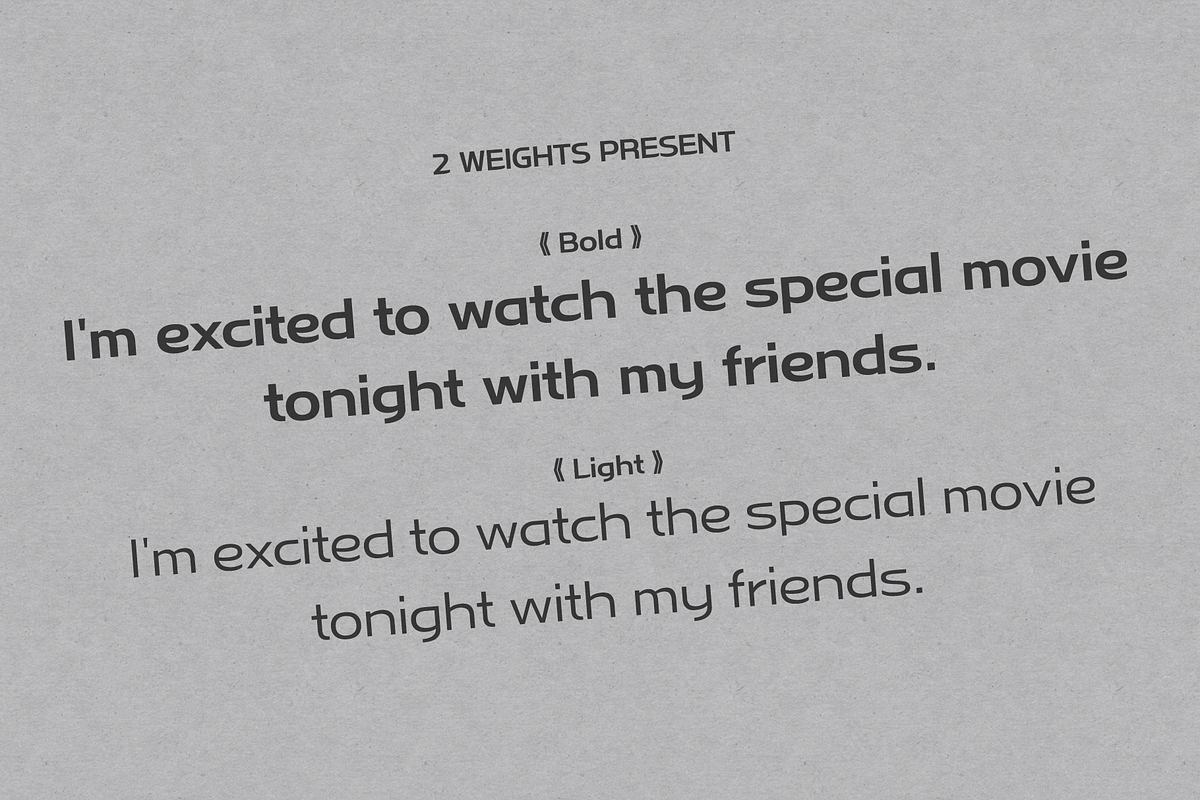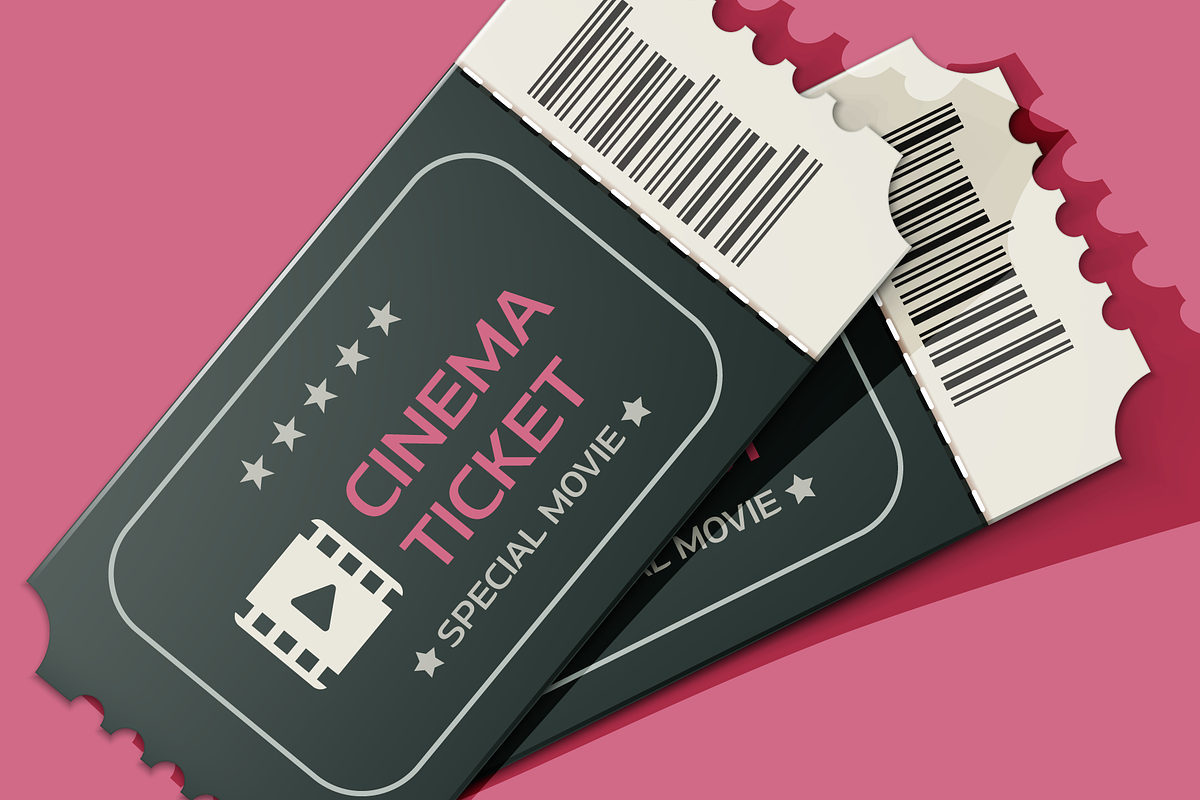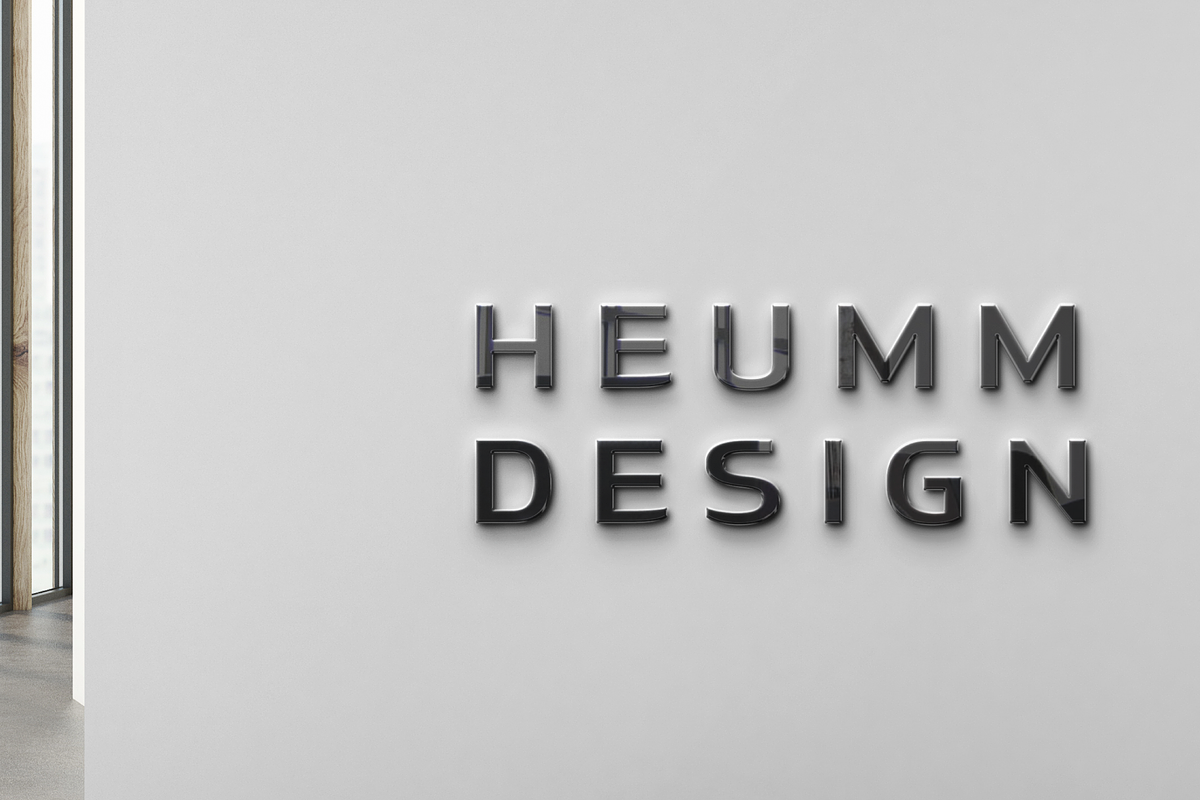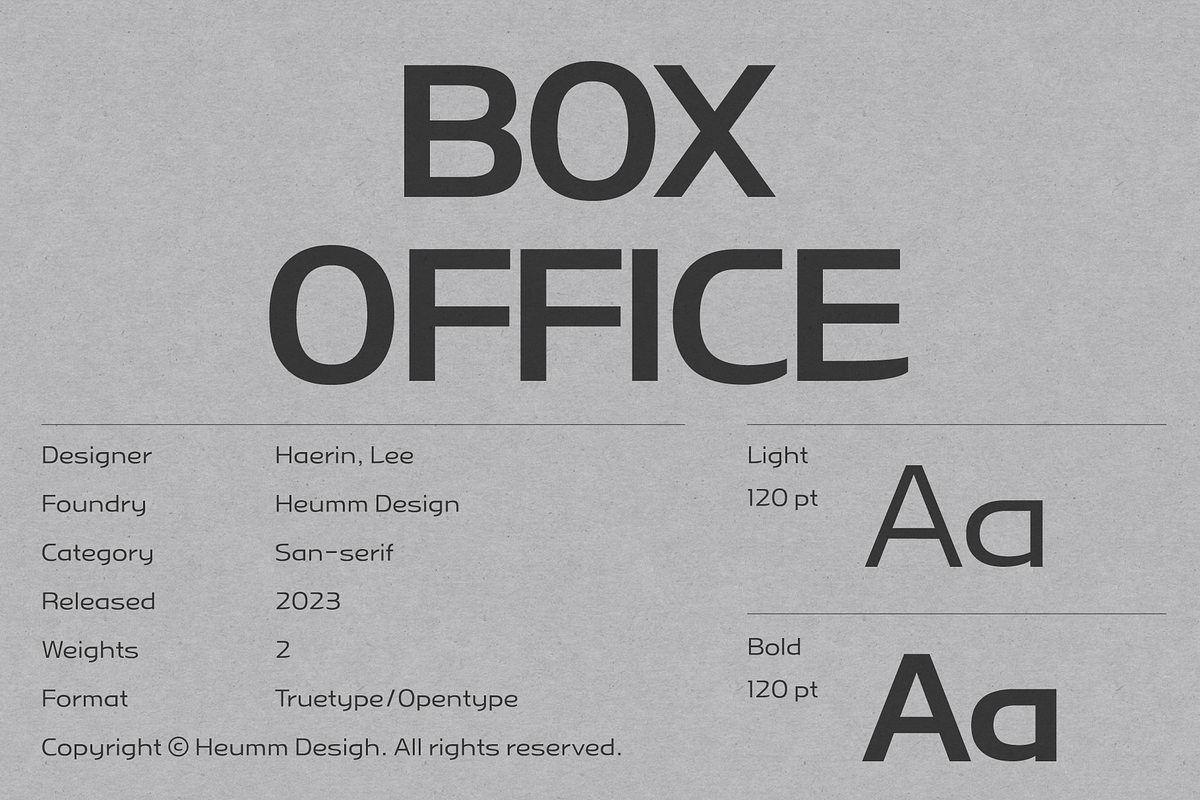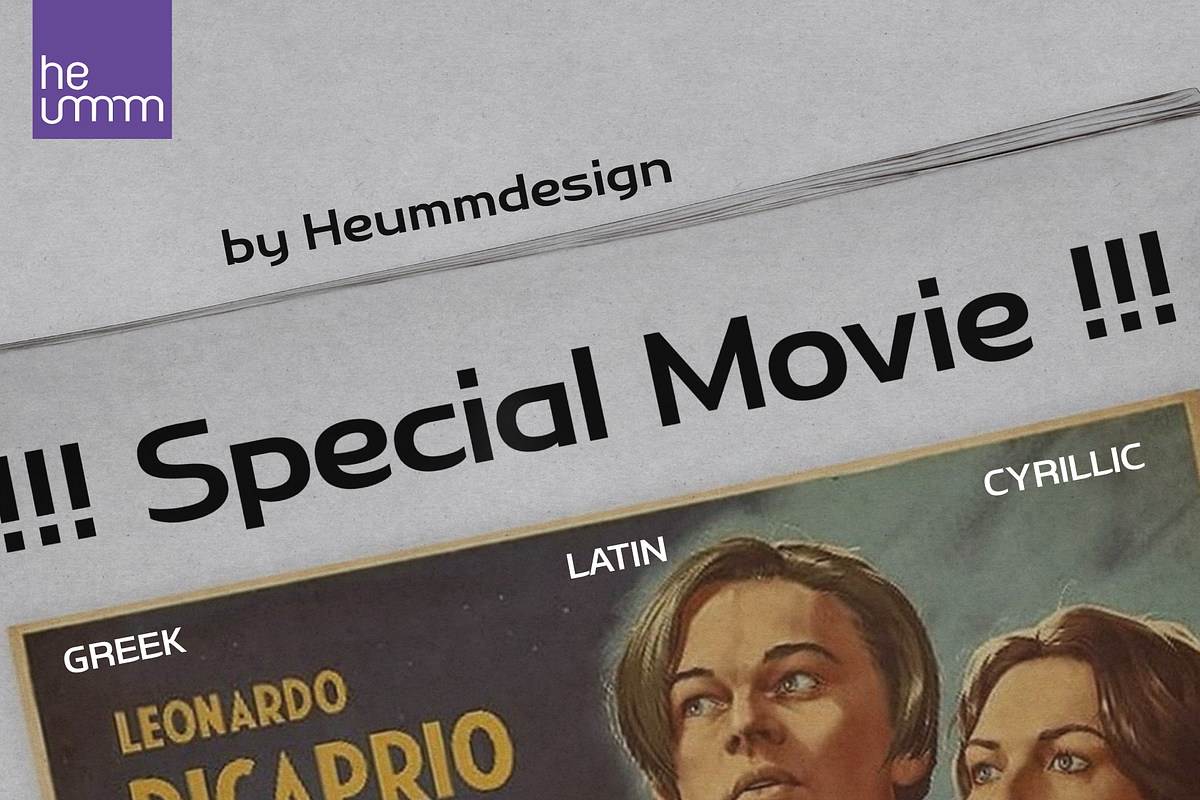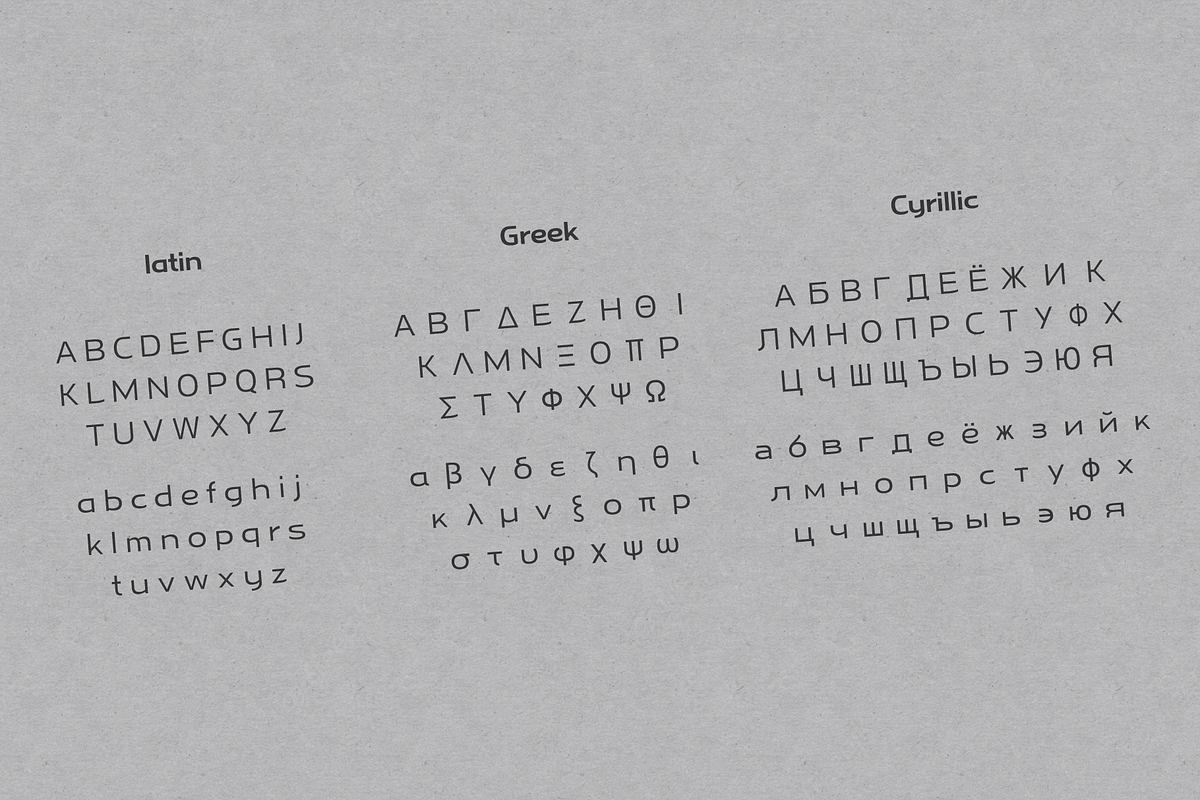
HU Specialmovie is a retro, wide square typeface, characterized by streamlined, narrow stroke ends.
The first consonants are designed to be large with full modules to improve readability. The grapheme 'O', which is the face of the font, is in the form of a square in harmony with straight lines and curves, expressing a solid and simple feeling overall.
There is 2 weight of HU Specialmovie : Light, Bold
- Multilanguage (Basic Latin, Western European, Euro, Catalan, Baltic, Turkish, Central European, Romanian, Pan African Latin, Dutch, Afrikaans, Basic Greek, Basic Cyrillic, Mathematical Operators)